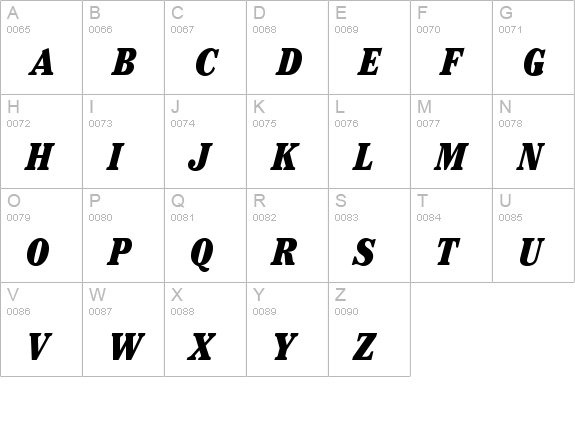
CheltenhamEF-UltraCondensIta font is a sleek and sophisticated typeface that exudes elegance and professionalism. Its ultra condensed design makes it perfect for creating sleek and modern designs that demand attention. The tall and narrow letterforms give a unique touch to any project, whether it be for branding, editorial design, or web graphics. The CheltenhamEF-UltraCondensIta font is not only visually striking, but also highly versatile, making it suitable for a wide range of applications. It offers a timeless and classic appeal that will elevate any design to the next level. Best of all, this premium font is available for free download at FontsMarket.com. So go ahead and add CheltenhamEF-UltraCondensIta to your font collection today and start creating stunning designs that stand out from the crowd.